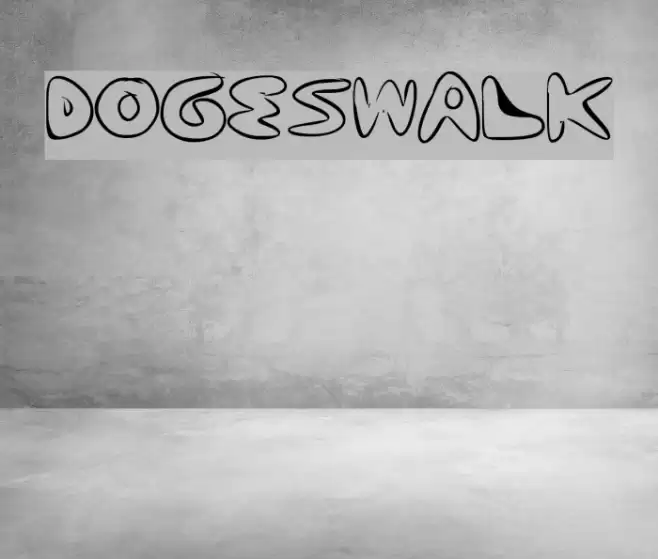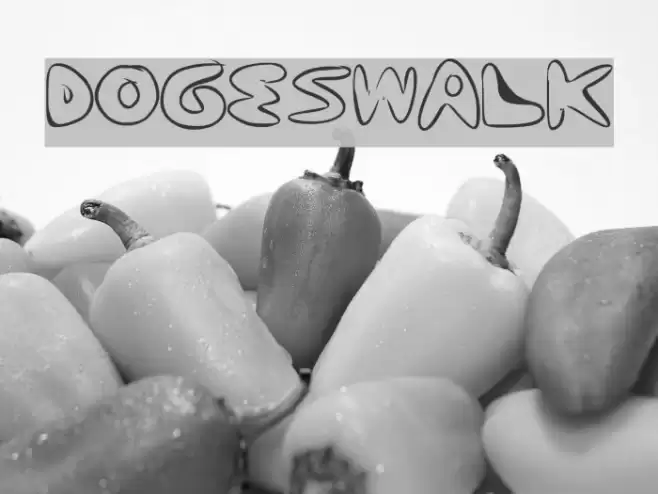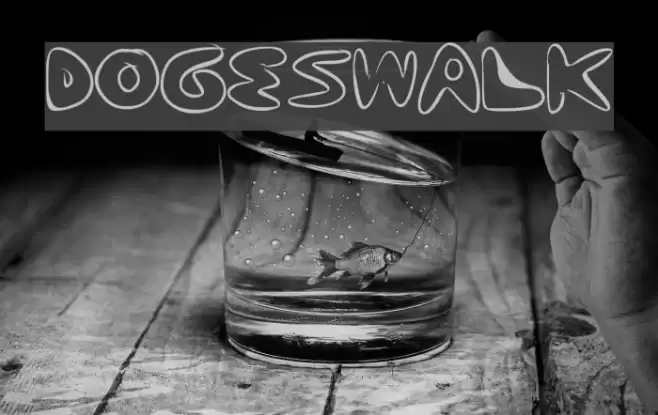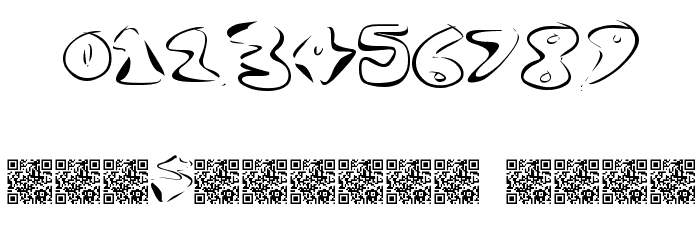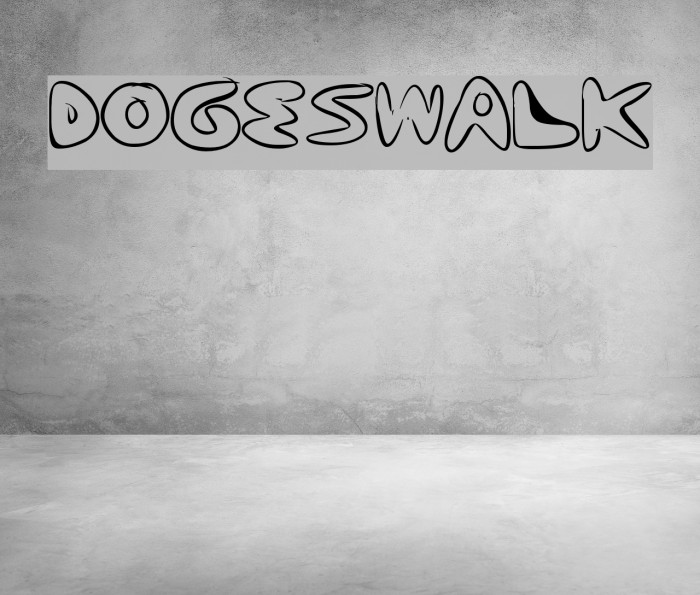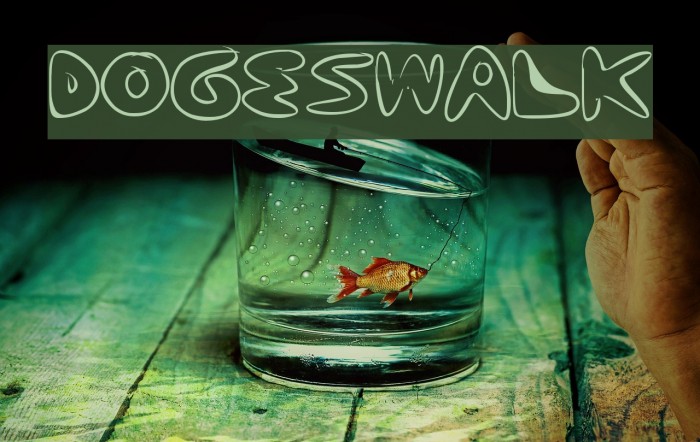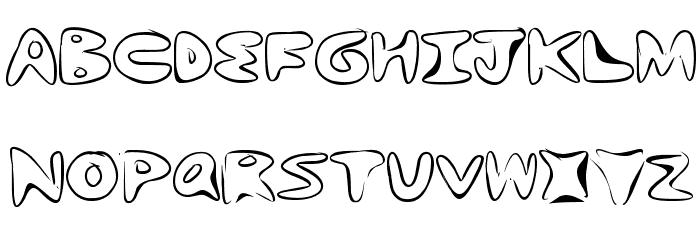
DogesWalk Font
DogesWalk Description
This playful and whimsical font features a unique, bubbly design with a hand-drawn aesthetic. The characters are outlined with a bold, black stroke, creating a striking contrast against the white interior. The letters have a rounded, organic shape, giving them a friendly and approachable feel. The font's style is reminiscent of cartoon or comic lettering, making it ideal for projects that require a fun and informal touch. The numbers and special characters maintain the same playful design, ensuring consistency across all text elements. This font is perfect for creative projects that aim to capture attention with its distinctive and lively appearance.
A playful, bubbly font with a hand-drawn, comic-like style from Cartoon fonts.
- Proposed Projects: Ideal for children's books, comic strips, playful branding, and creative posters.
- Overall Style: Playful, Whimsical